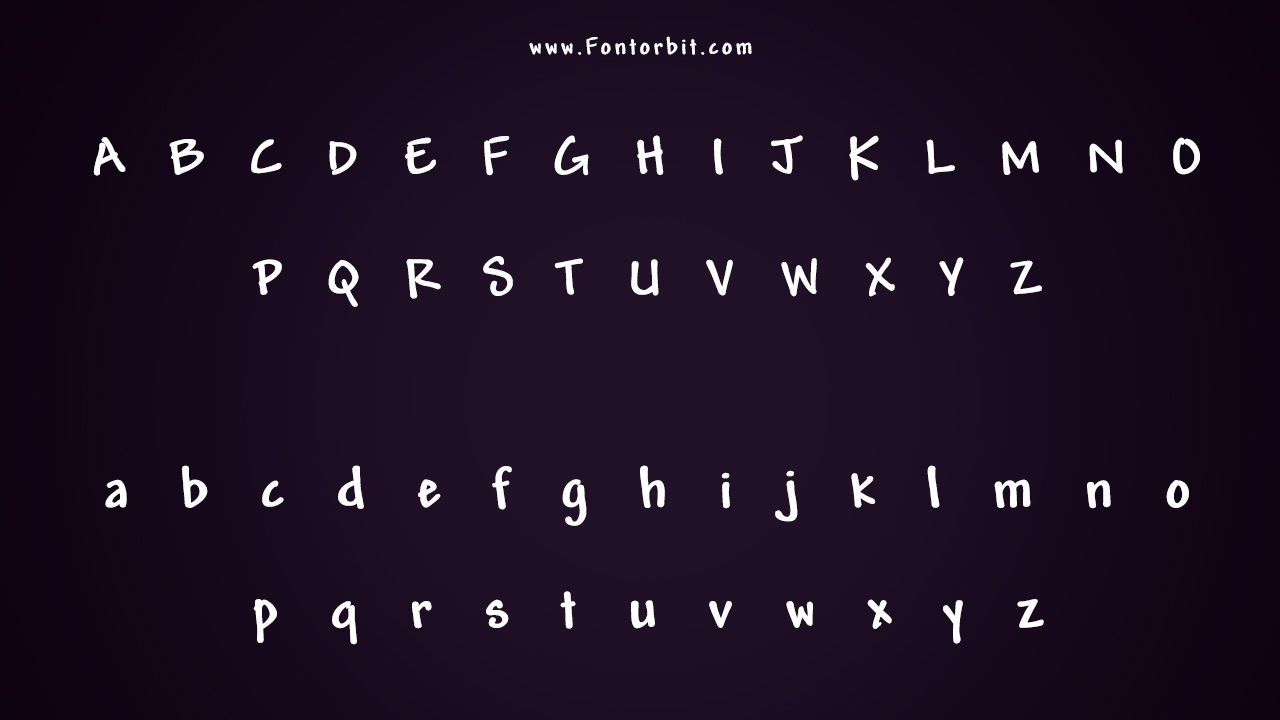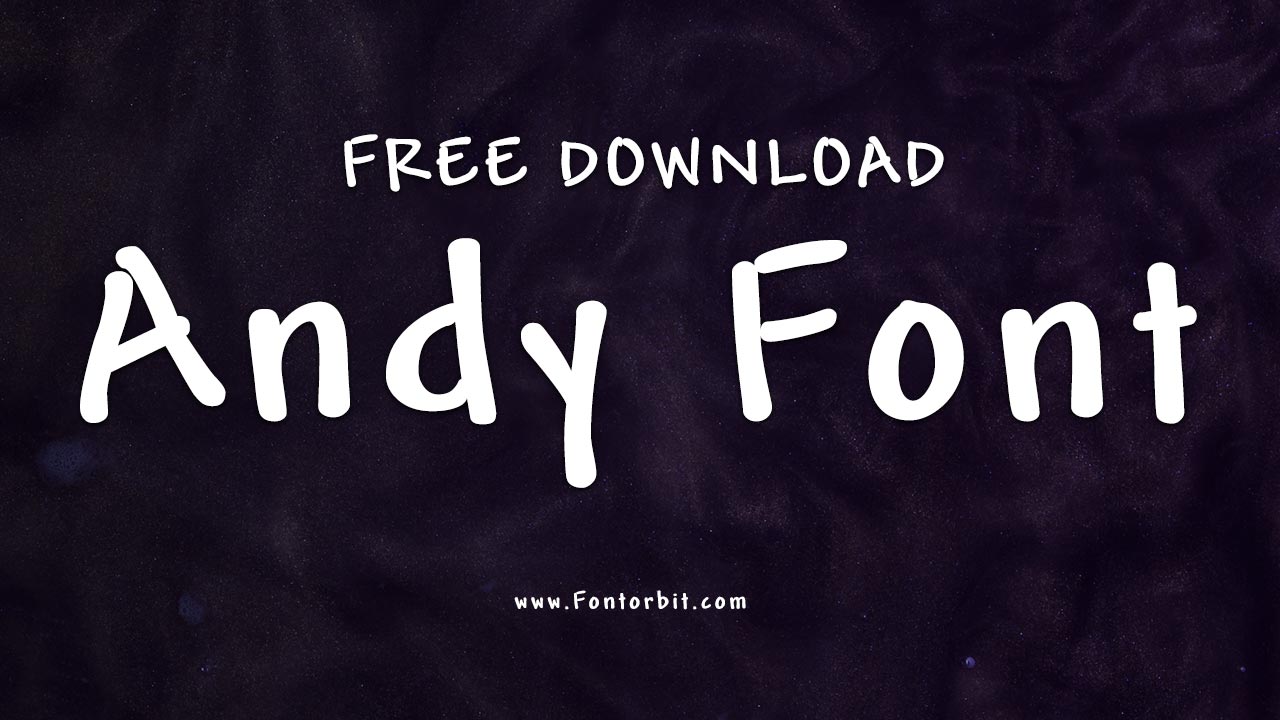
The Andy font is a casual, handwritten typeface designed by Steve Matteson and released by Monotype Imaging in 1991.
Known for its playful, informal style, this font is part of the larger “Andy” family, which embodies a relaxed, friendly aesthetic suitable for various creative projects. Educational materials, children’s books, and informal documents widely use the font.
The Andy font family offers a variety of styles, each maintaining the core characteristics of the original design while providing versatility for different design needs. The family includes:
- Battle Andy Italic
- Battle Andy Swash
- Battle Andy Regular
- Battle Andy Bold
Notable Uses Of Andy Font
Numerous notable contexts, particularly in the educational and creative sectors, have used the Andy font. It’s commonly seen in:
- Children’s books and educational materials
- Informal presentations and documents.
- Greeting cards and invitations.
Andy is perfect for any project that requires a friendly and approachable tone. It’s particularly well-suited for:
- Educational materials
- Children’s books
- Informal newsletters
- Scrapbooking
- Casual presentations
The Andy font is an excellent choice for projects that need a casual, handwritten touch. Its widespread use in educational and informal settings speaks to its versatility and appeal. Whether you’re designing for children or looking to add a personal touch to your documents, Andy is a reliable and accessible option.
1.What Is The Andy Font Primarily Used For?
Educational materials, children’s books, and informal documents primarily use it.
3.What Are Some Alternatives To The Andy Font?
Some alternatives include Comic Sans MS, Patrick Hand, and KG Happy.
5.Is The Andy Font Available In Multiple Styles?
Yes, it includes styles such as Regular, Bold, Italic, and Bold Italic.
6.What Font Family Does Andy Belong To?
Andy belongs to the casual, handwritten font family.
7.What Is The Best Context For Using The Andy Font?
It’s best used in contexts that require a friendly, informal tone, such as educational materials and children’s books.